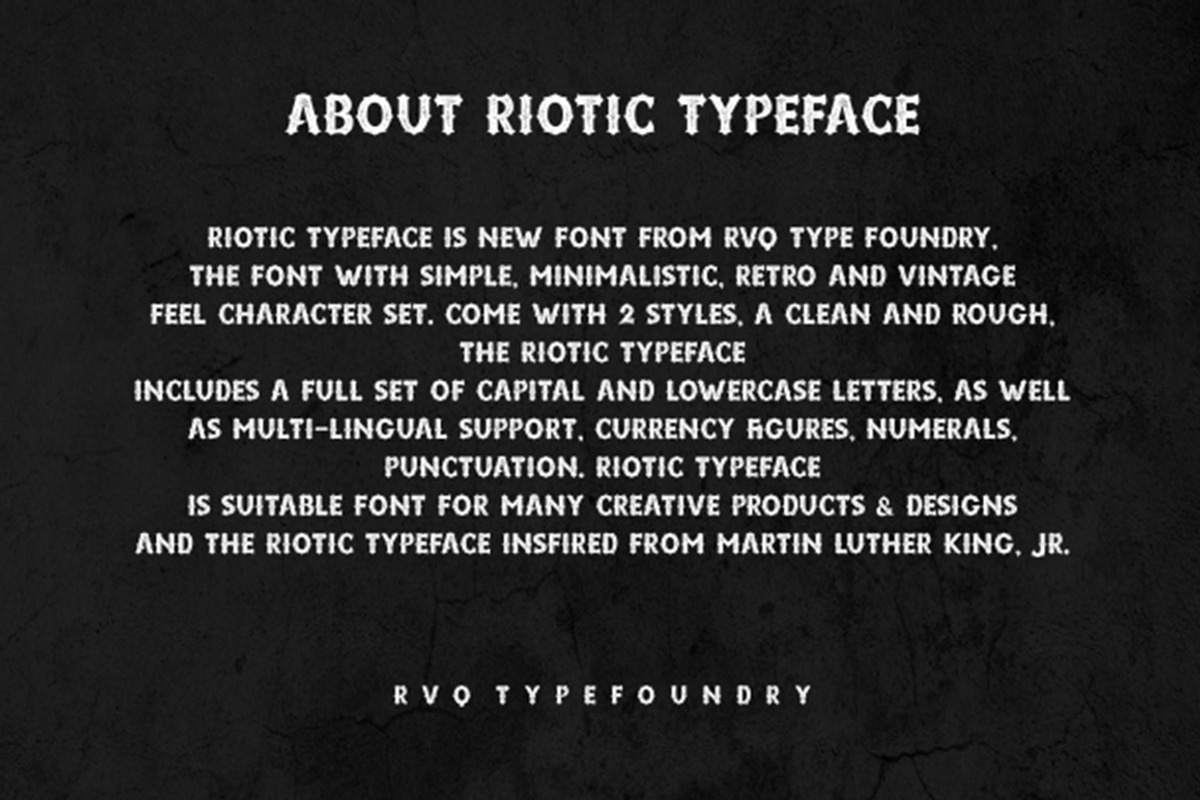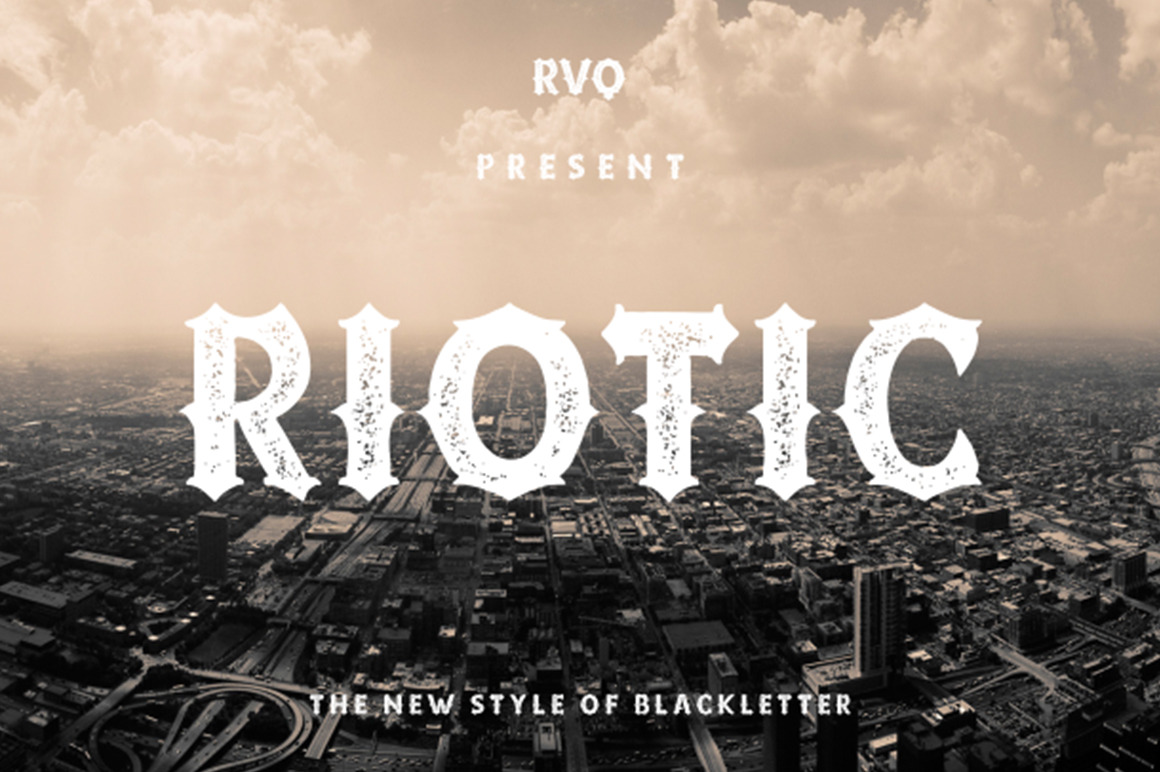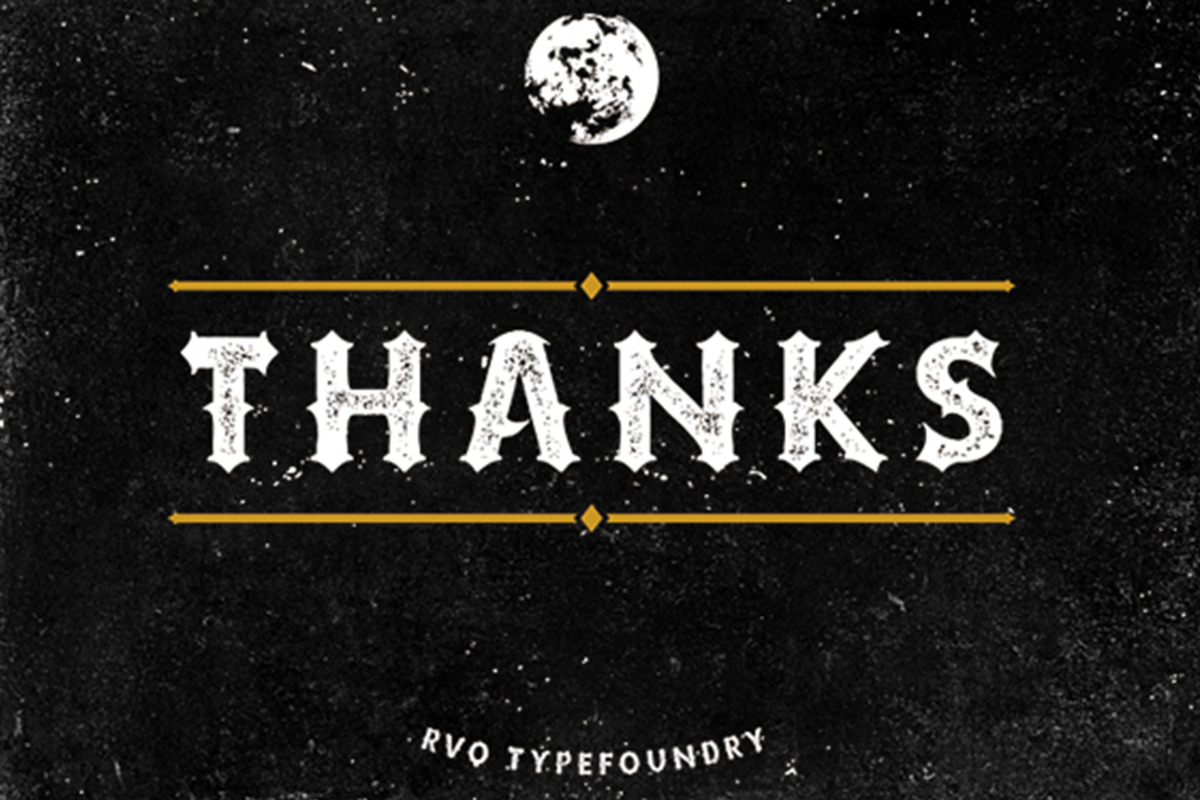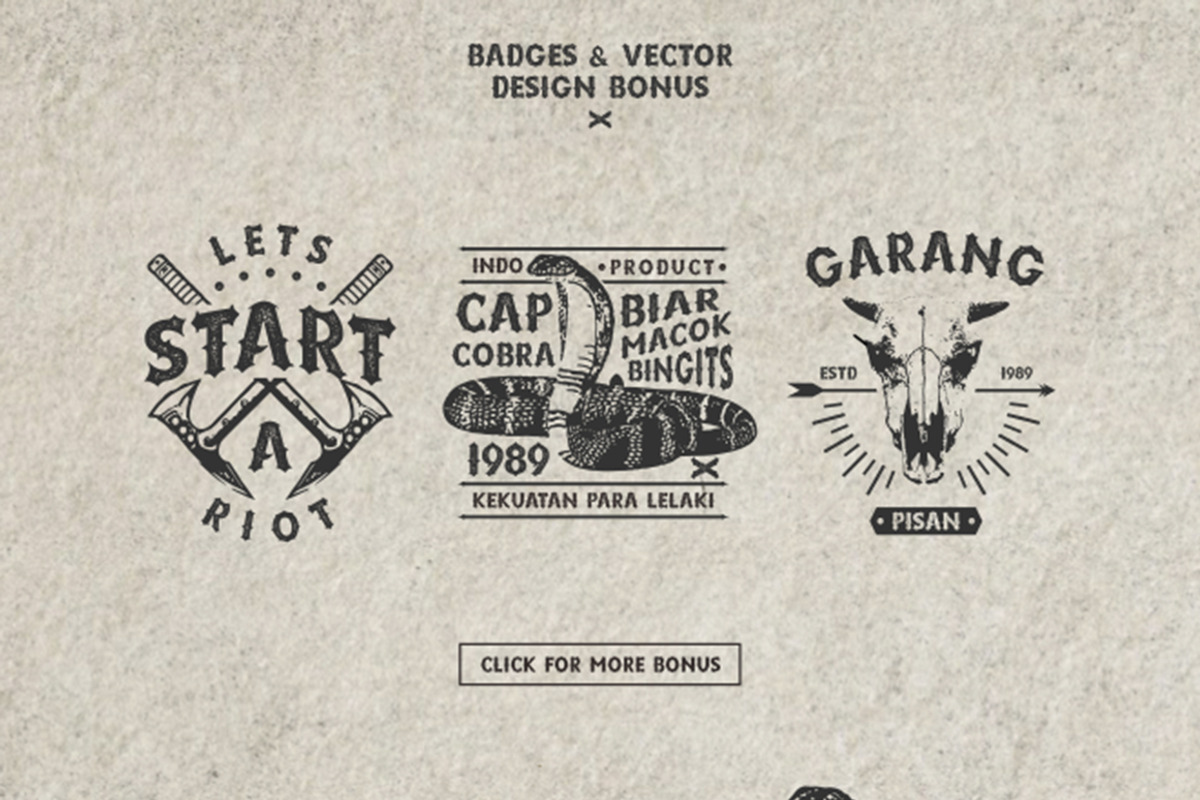
Riotic Typeface + Bonus
RIOTIC typeface is new font from RVQ type foundry,the font with simple, minimalistic, retro and vintage feel character set. Come with 2 styles, a clean and rough,the RIOTIC typeface includes a full set of capital and lowercase letters, as wellas multi-lingual support, currency figures, numerals,punctuation. RIOTIC typefaceis suitable font for many creative products & designs AND THE RIOTIC TYPEFACE INSFIRED FROM MARTIN LUTHER KING, JR.
Riotic Typeface
Riotic Typeface Rough
Riotic typeface is suitable font for many creative products & designs.